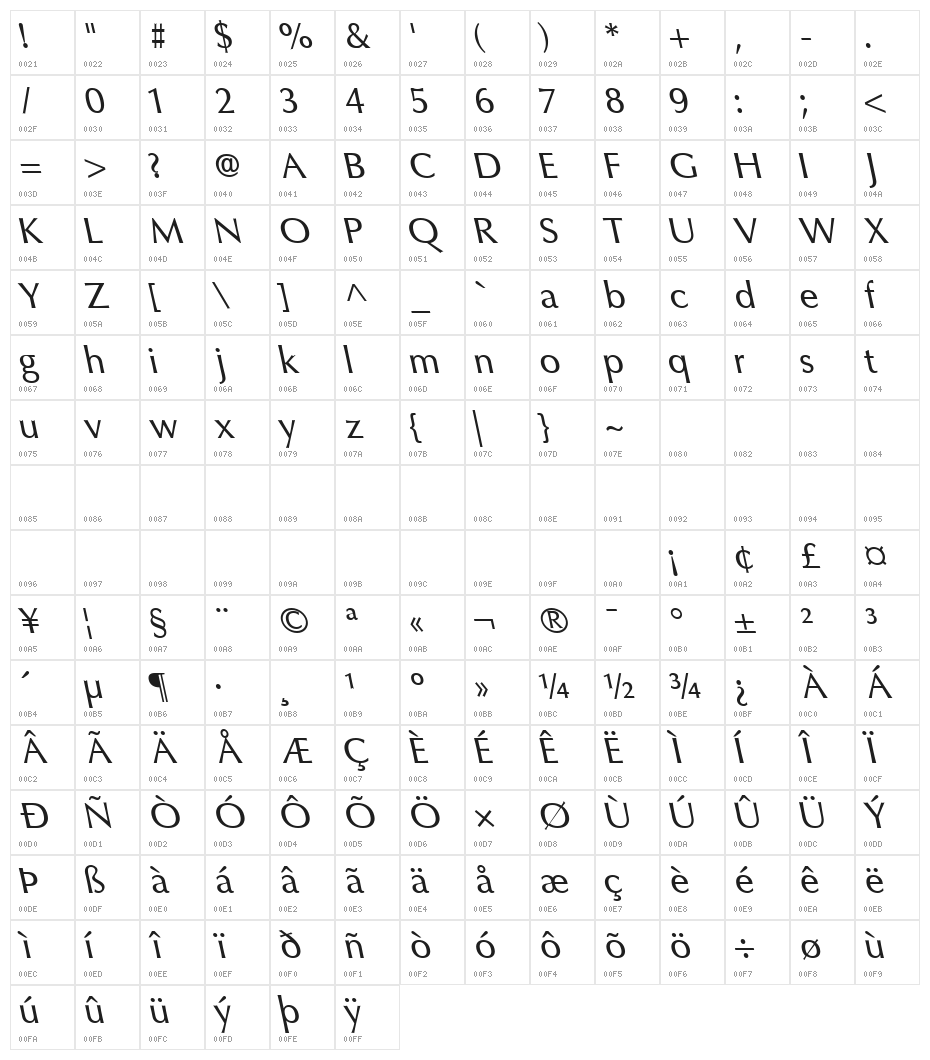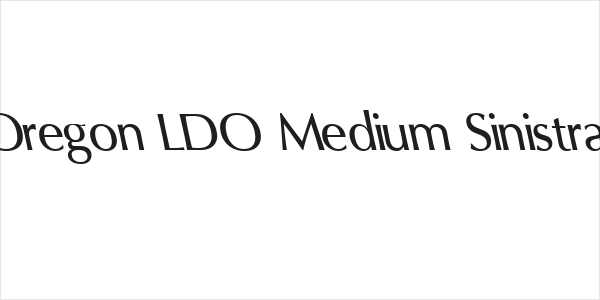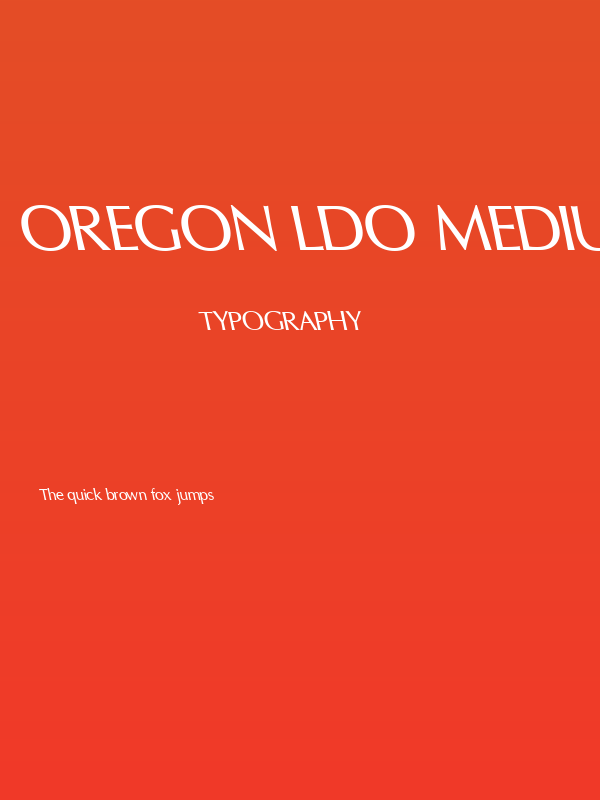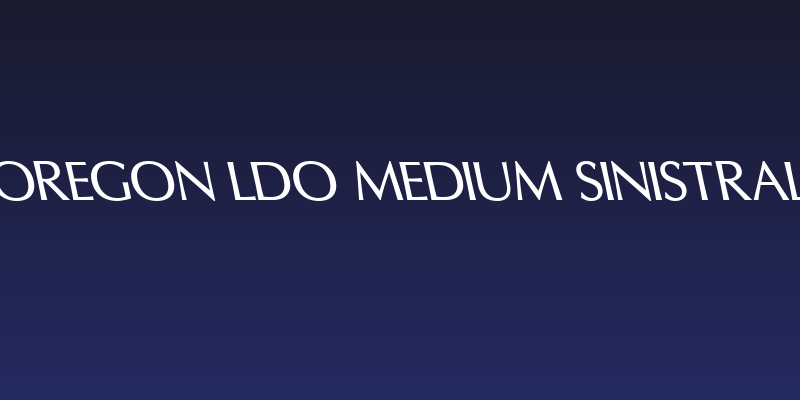
Oregon LDO Medium Sinistral Font
Oregon LDO Medium Sinistral Description
This font exhibits a modern and clean design with a slight slant, giving it a dynamic and forward-moving appearance. The characters are well-proportioned, with a consistent stroke width that provides a balanced and harmonious look. The uppercase letters are bold and assertive, while the lowercase letters maintain a friendly and approachable feel. The numerals are clear and easily distinguishable, making them suitable for various applications. The special characters are thoughtfully designed, ensuring they integrate seamlessly with the rest of the typeface.
| Proposed Projects | Ideal for branding, advertising, and editorial design where a modern and dynamic feel is desired. |